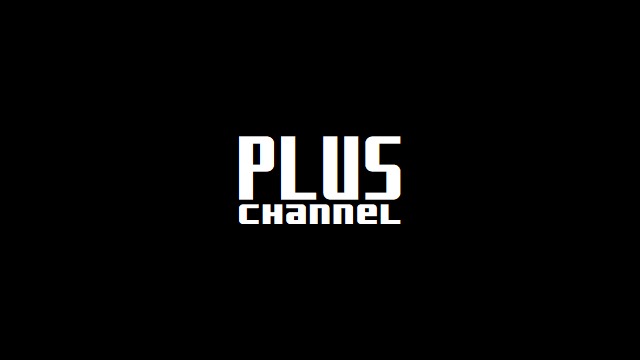
Plus Channel Font
Plus Channel Sans Serif Font
This is a cool and modern display font manufactured by Plus Channel. It can be paired with an incredibly large project set. It’s suitable for branding, logos, packaging, card-making, magazines, films, posters, websites, and more creative ideas. Add it to your fresh ideas and notice how it makes them stand out!